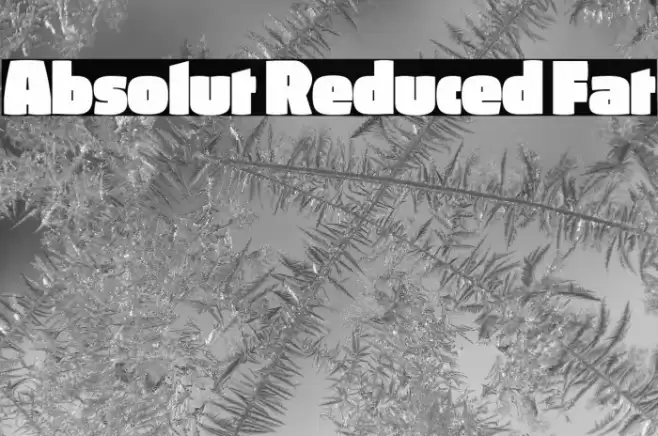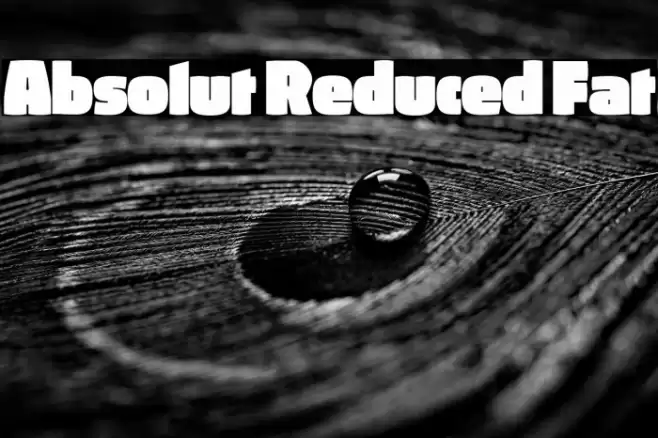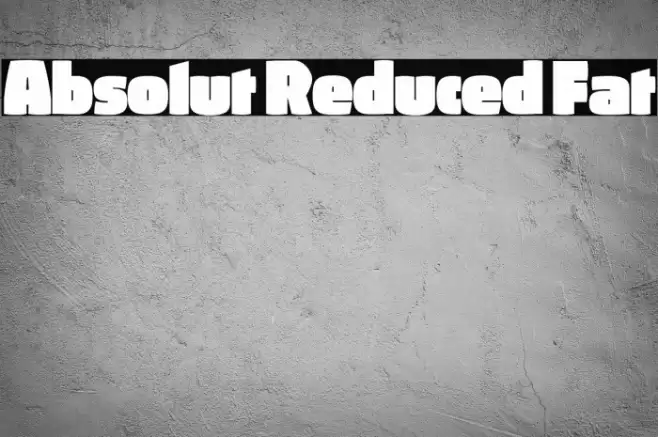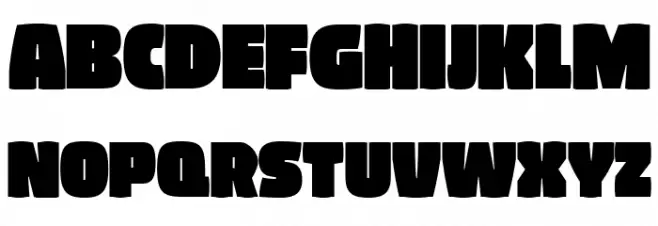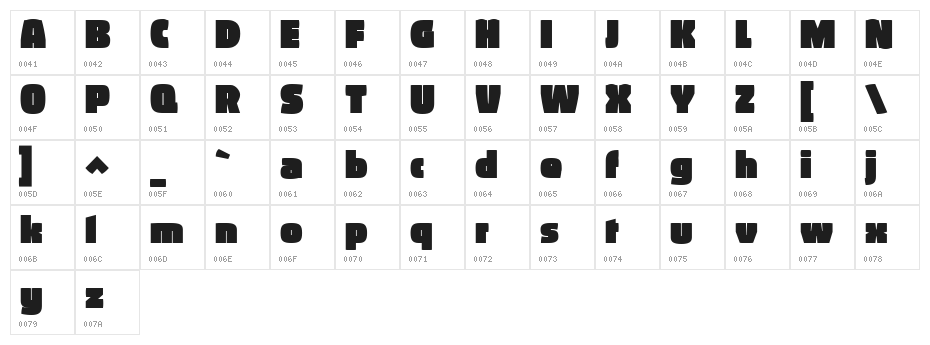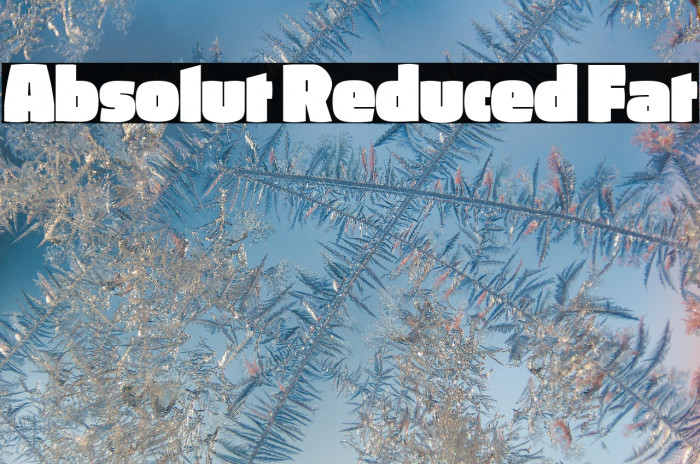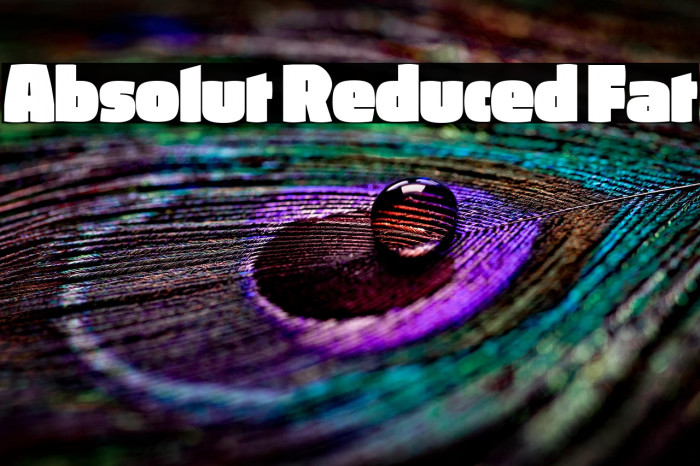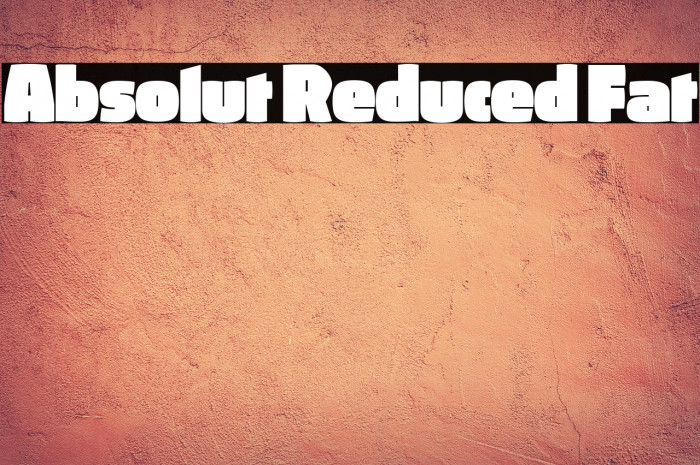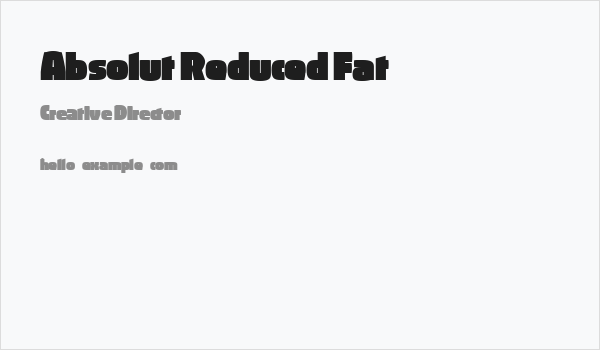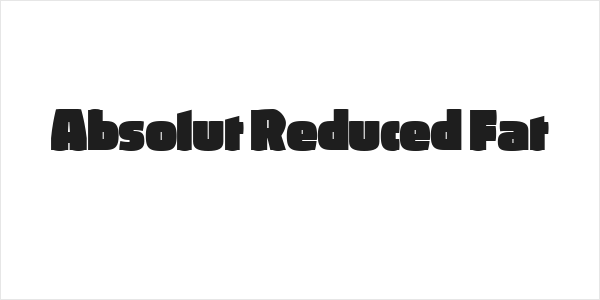
Absolut Reduced Fat Font
Absolut Reduced Fat Description
This font features a bold and chunky design with a strong presence, characterized by its thick, uniform strokes and minimal contrast. The letters are wide and have a playful, almost cartoonish feel, making them stand out prominently. The rounded edges and consistent weight across all characters contribute to a cohesive and impactful visual style. This font is well-suited for projects that require a strong visual impact and a sense of fun or whimsy. Its boldness ensures that it captures attention, making it ideal for headlines or branding materials where visibility is key.
A bold, chunky font with rounded edges and a playful style from Uncategorized fonts.
- Font: Absolut Reduced Fat
- Proposed Projects: Ideal for headlines, posters, branding, and any project needing a bold, playful touch.
- Width: Expanded
- Overall Style: Playful, Bold, Decorative
- Use Case: Headlines, Posters, Branding